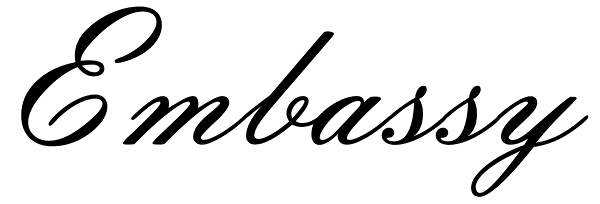
Embassy
The English roundhand has always occupied the central position in the group of faces appropriate to the social printing handled by engravers, and their contemporary imitators, thermographers. At the end of the nineteenth century when engraving was...